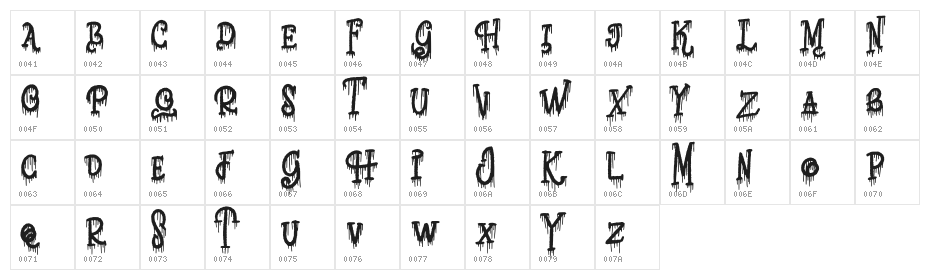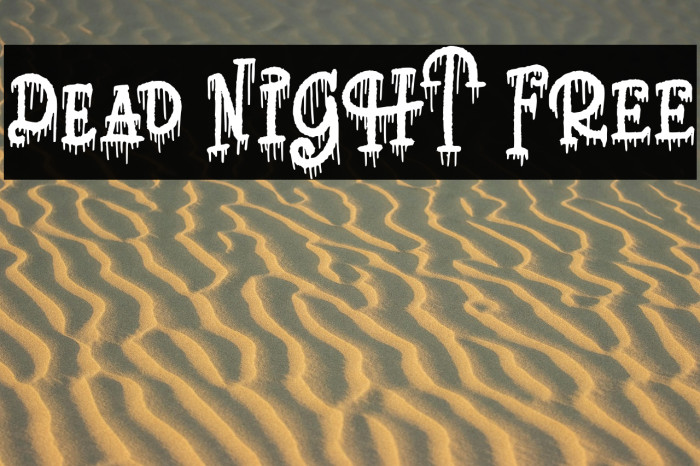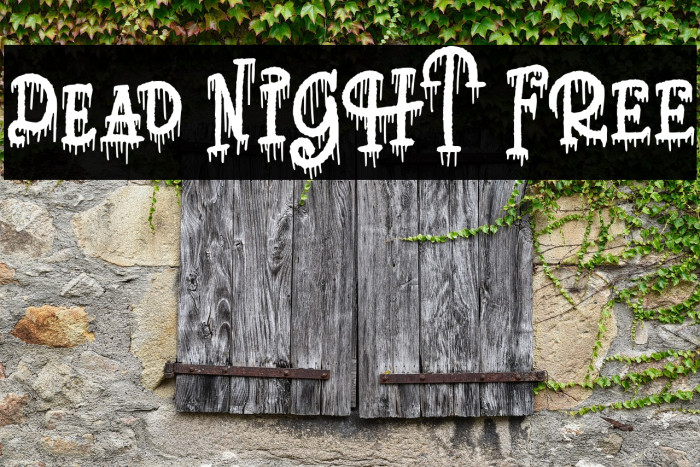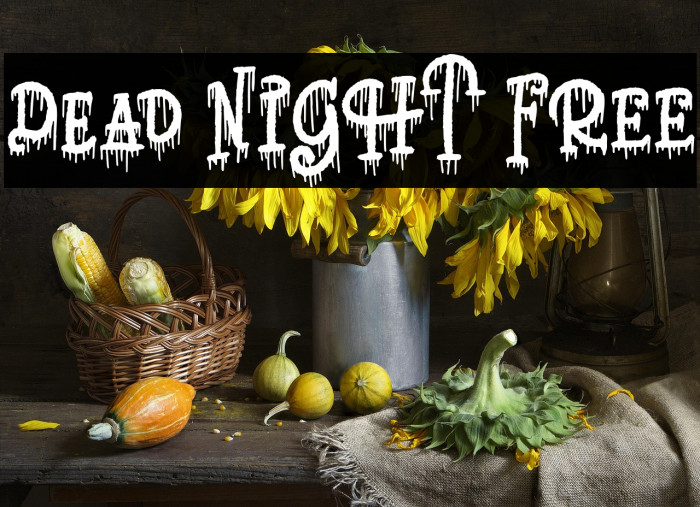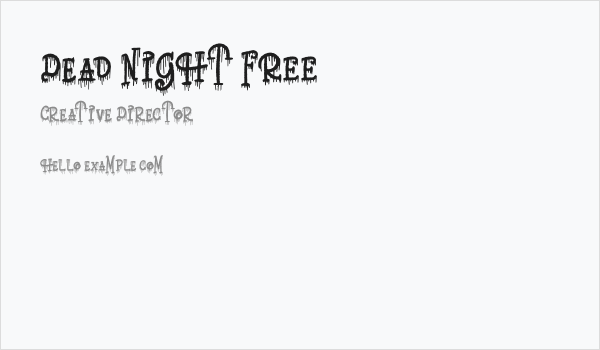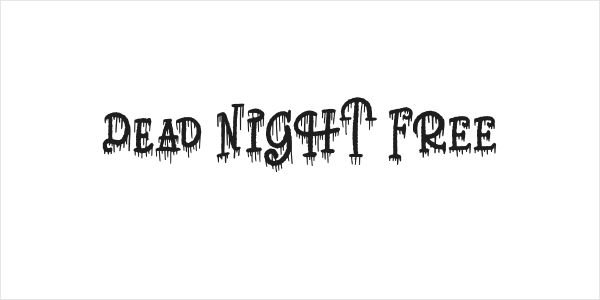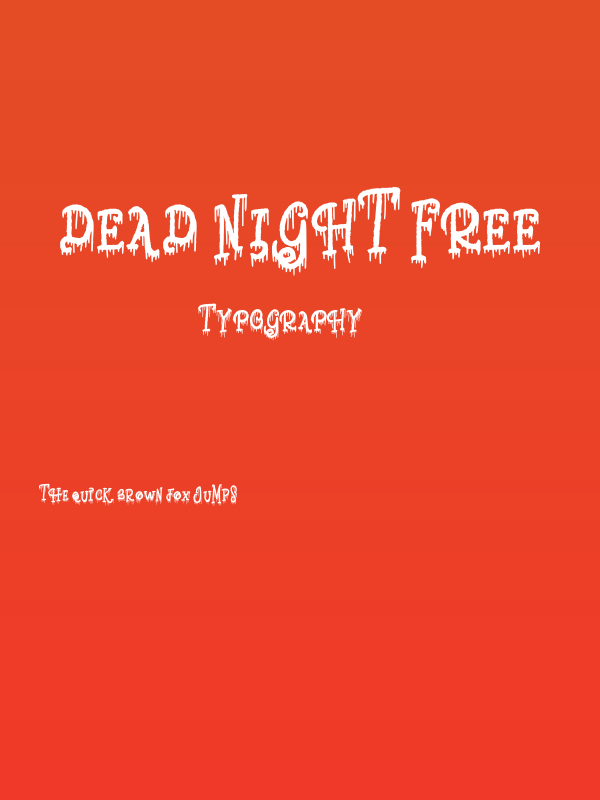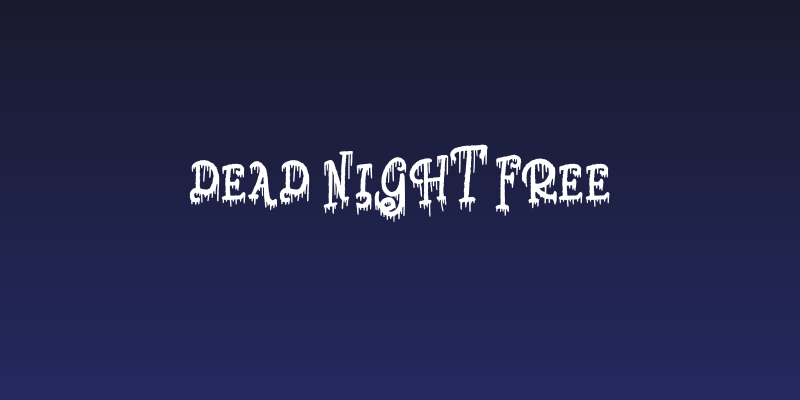
Dead Night FREE Font
Dead Night FREE Description
This font features a unique and eerie design with letters that appear to be dripping, reminiscent of melting wax or a spooky, haunted theme. The uppercase and lowercase letters maintain a consistent style, with each character exhibiting a playful yet unsettling appearance. The numbers and special characters follow the same dripping motif, enhancing the overall cohesive look. This font is perfect for creating a chilling atmosphere, ideal for Halloween-themed projects or any design that requires a touch of horror or mystery.
| Proposed Projects | Ideal for Halloween invitations, horror movie posters, haunted house flyers, and spooky-themed merchandise. |